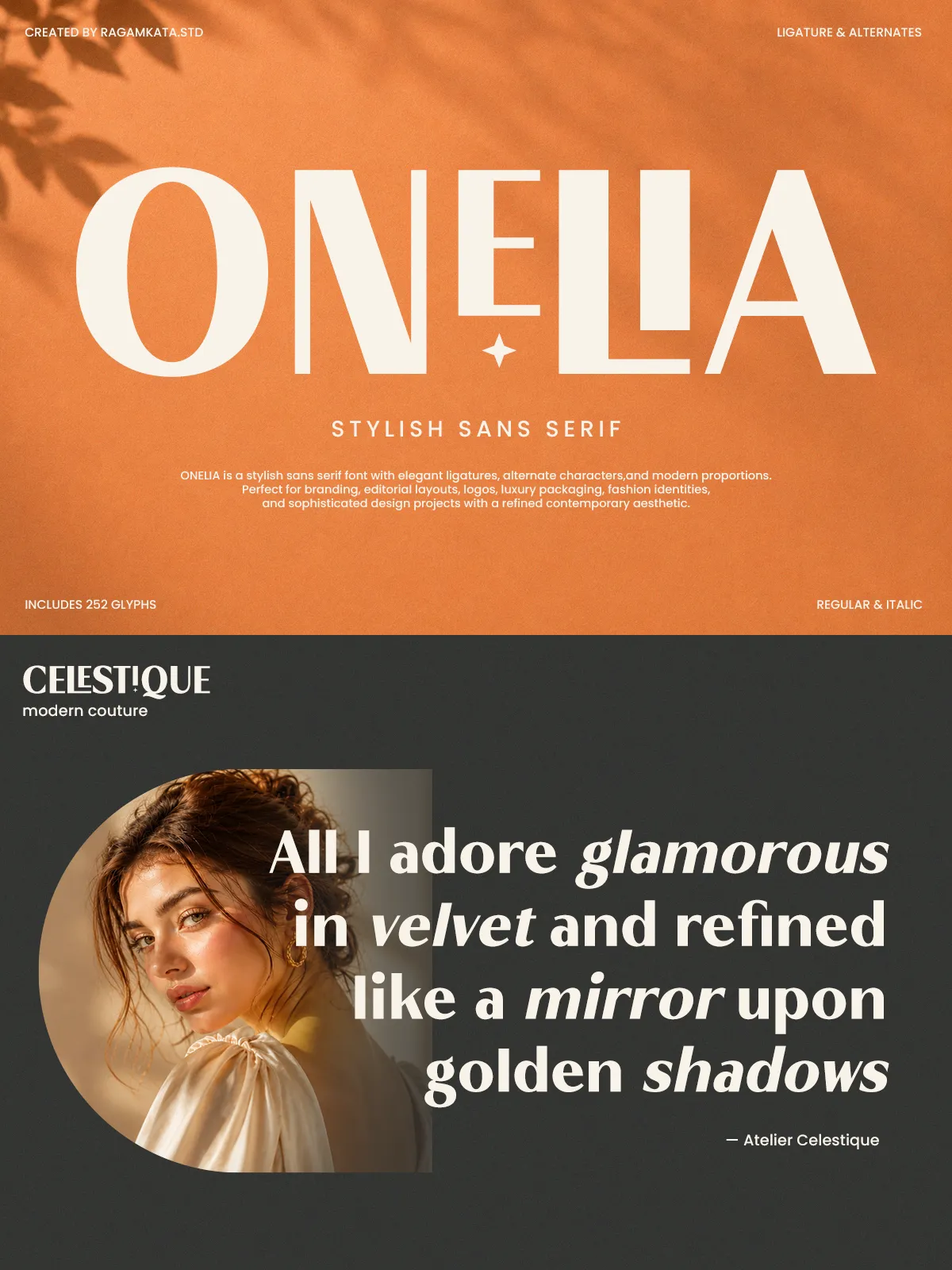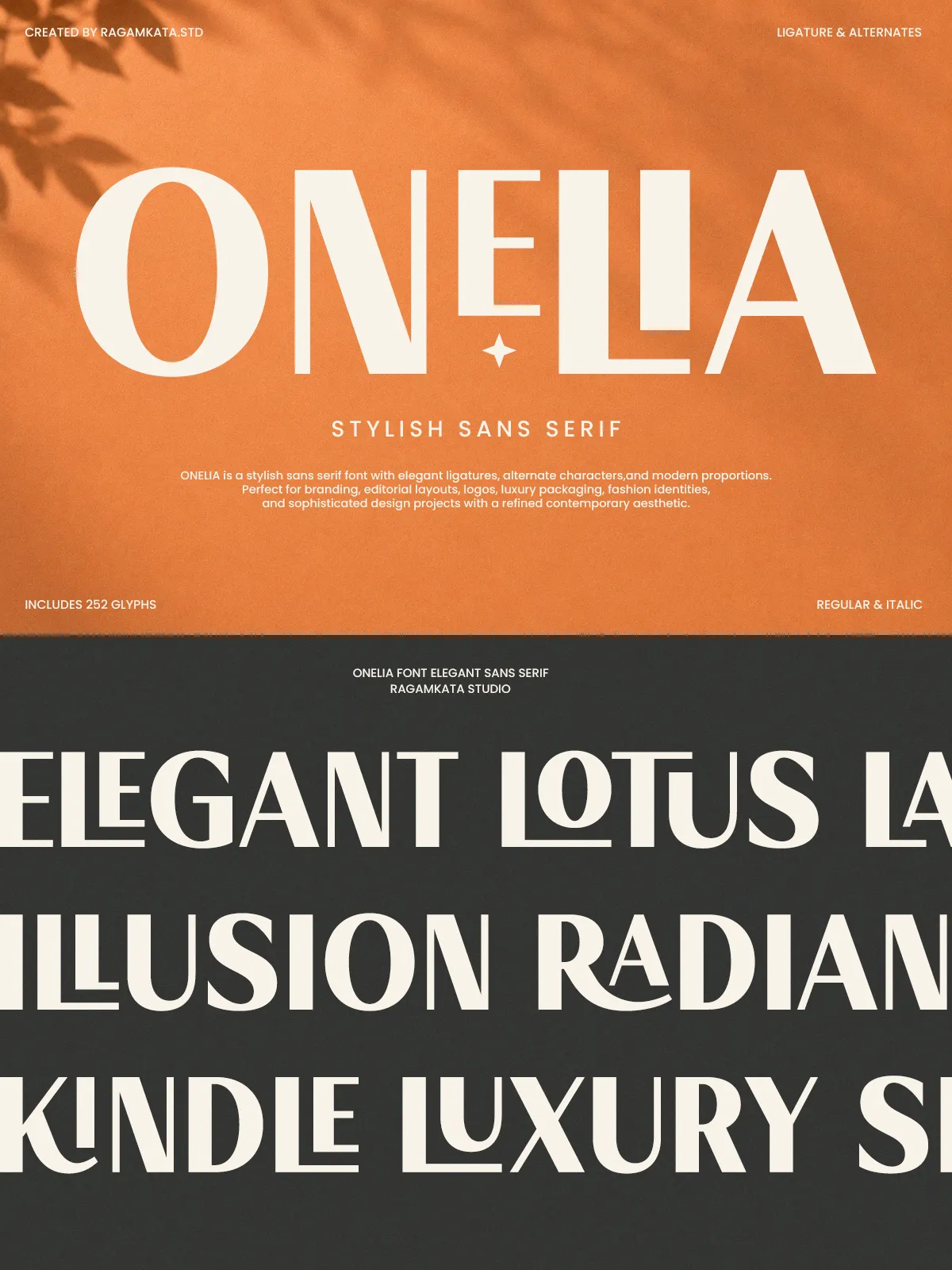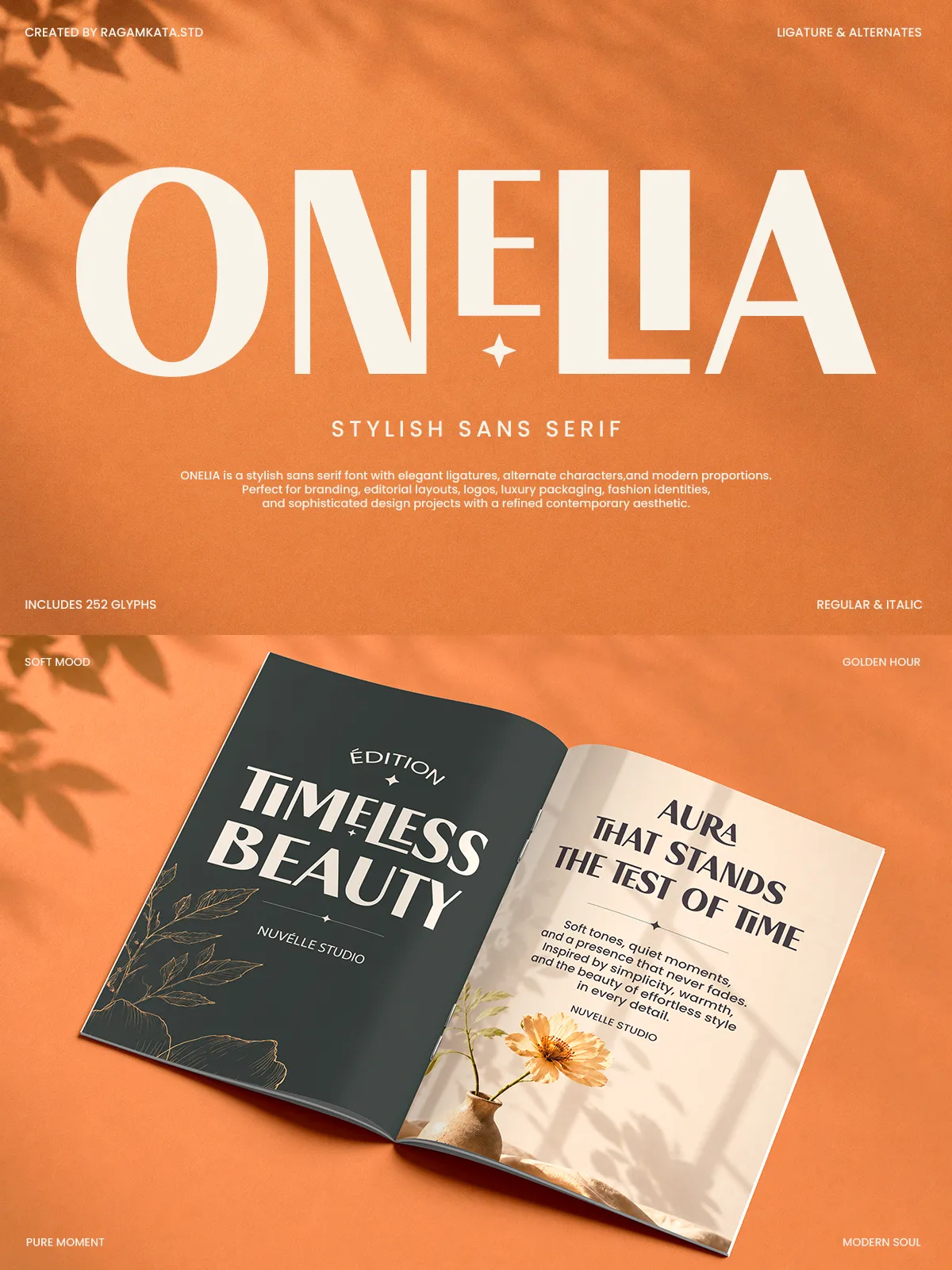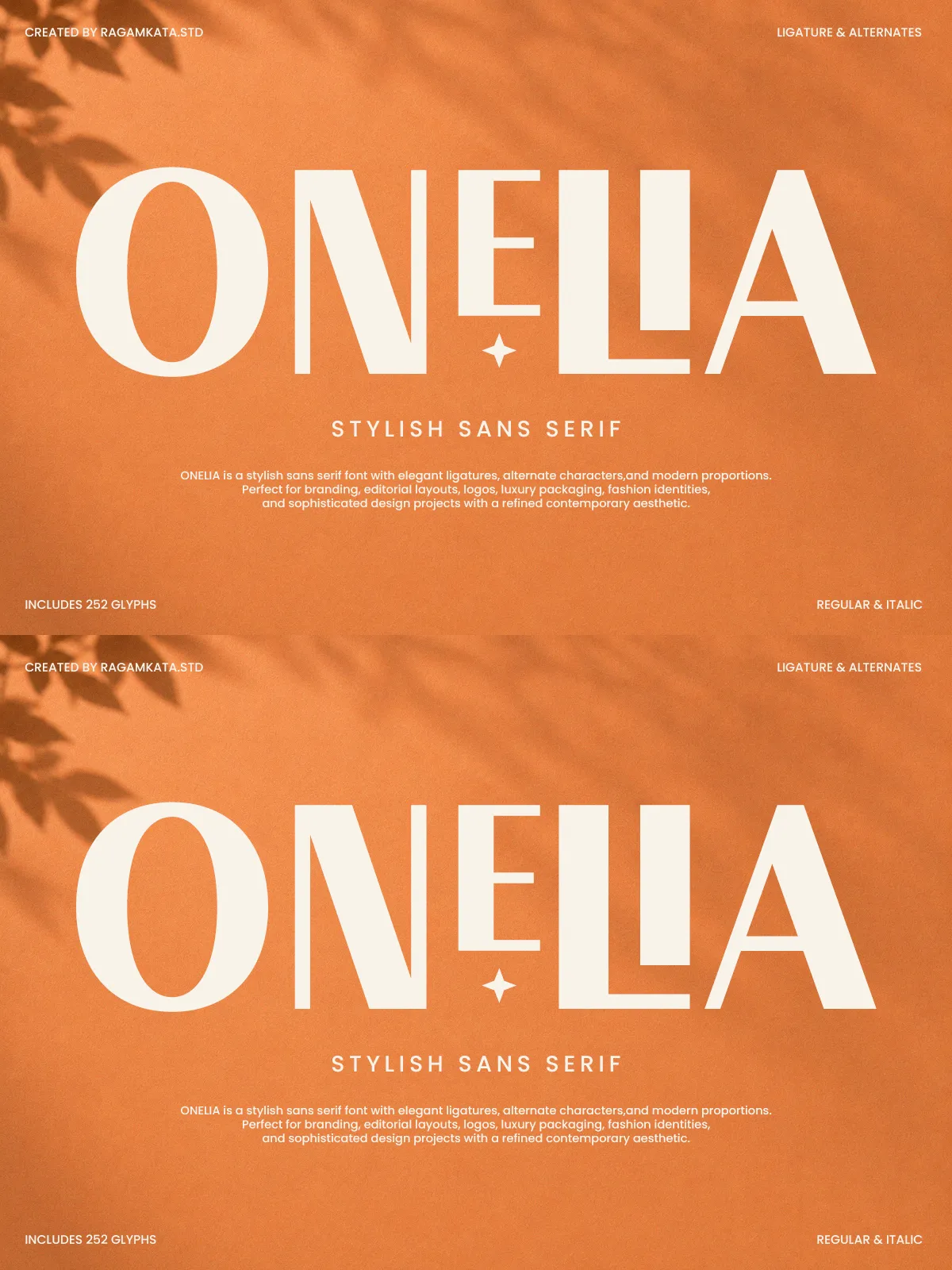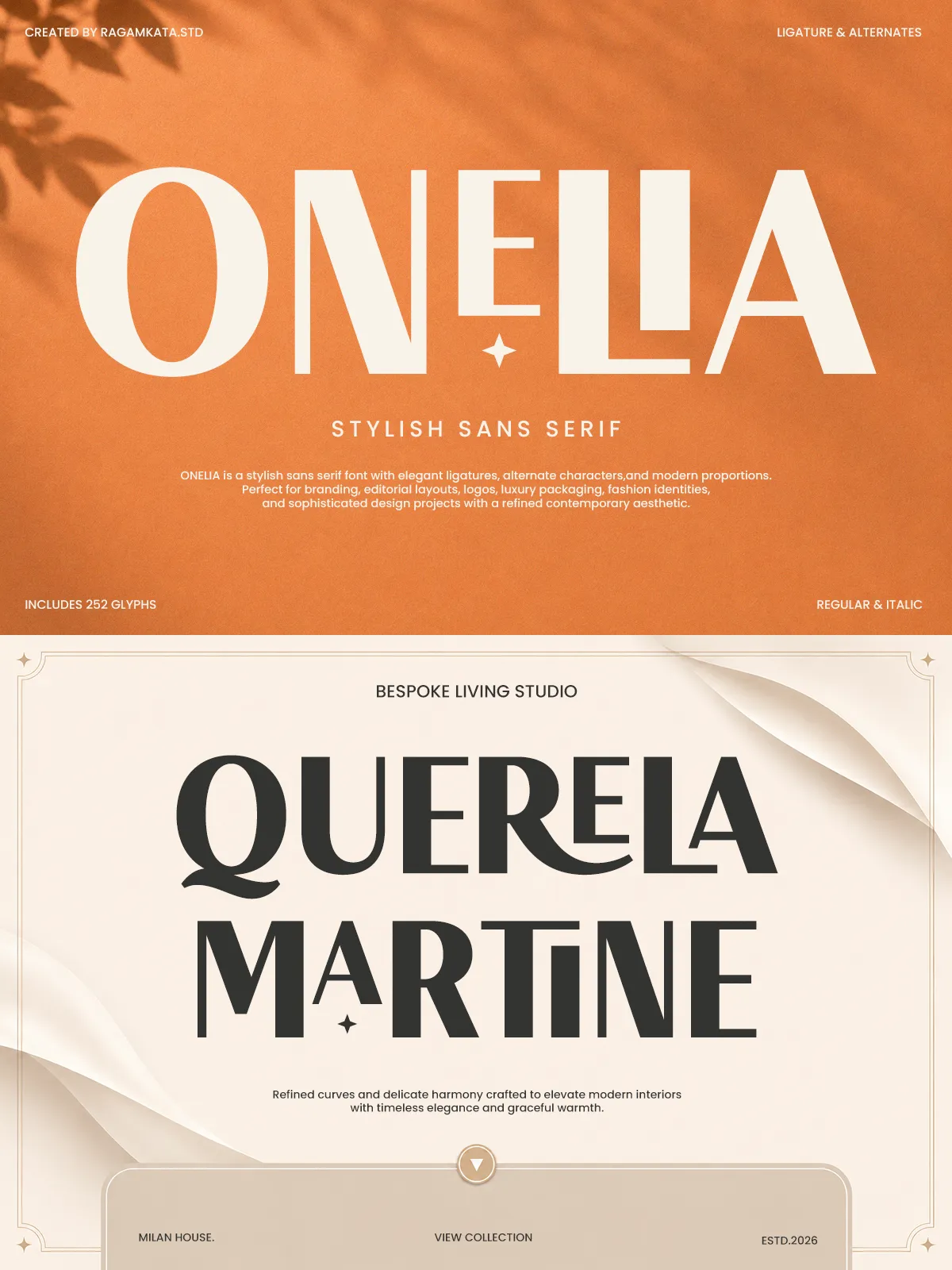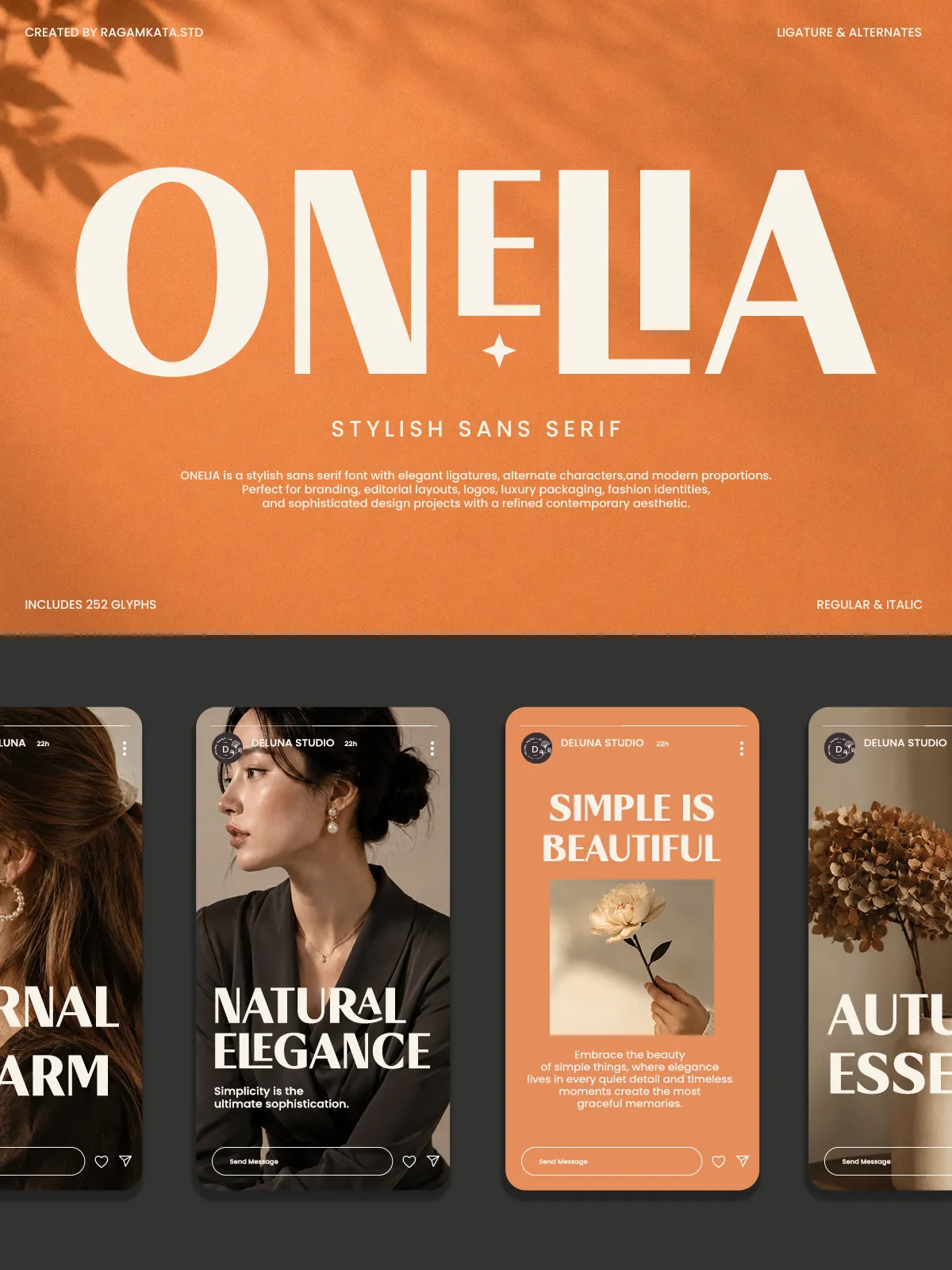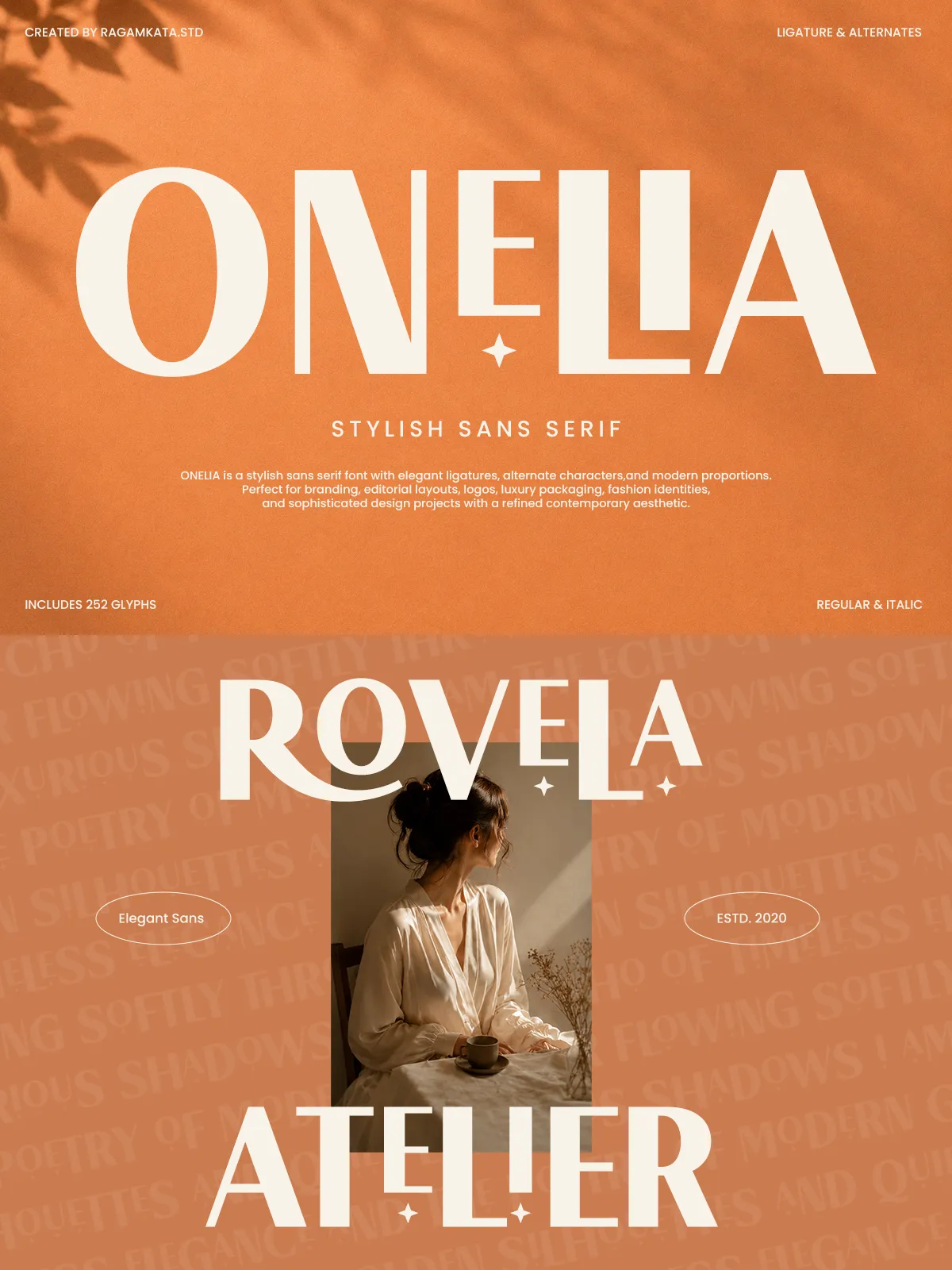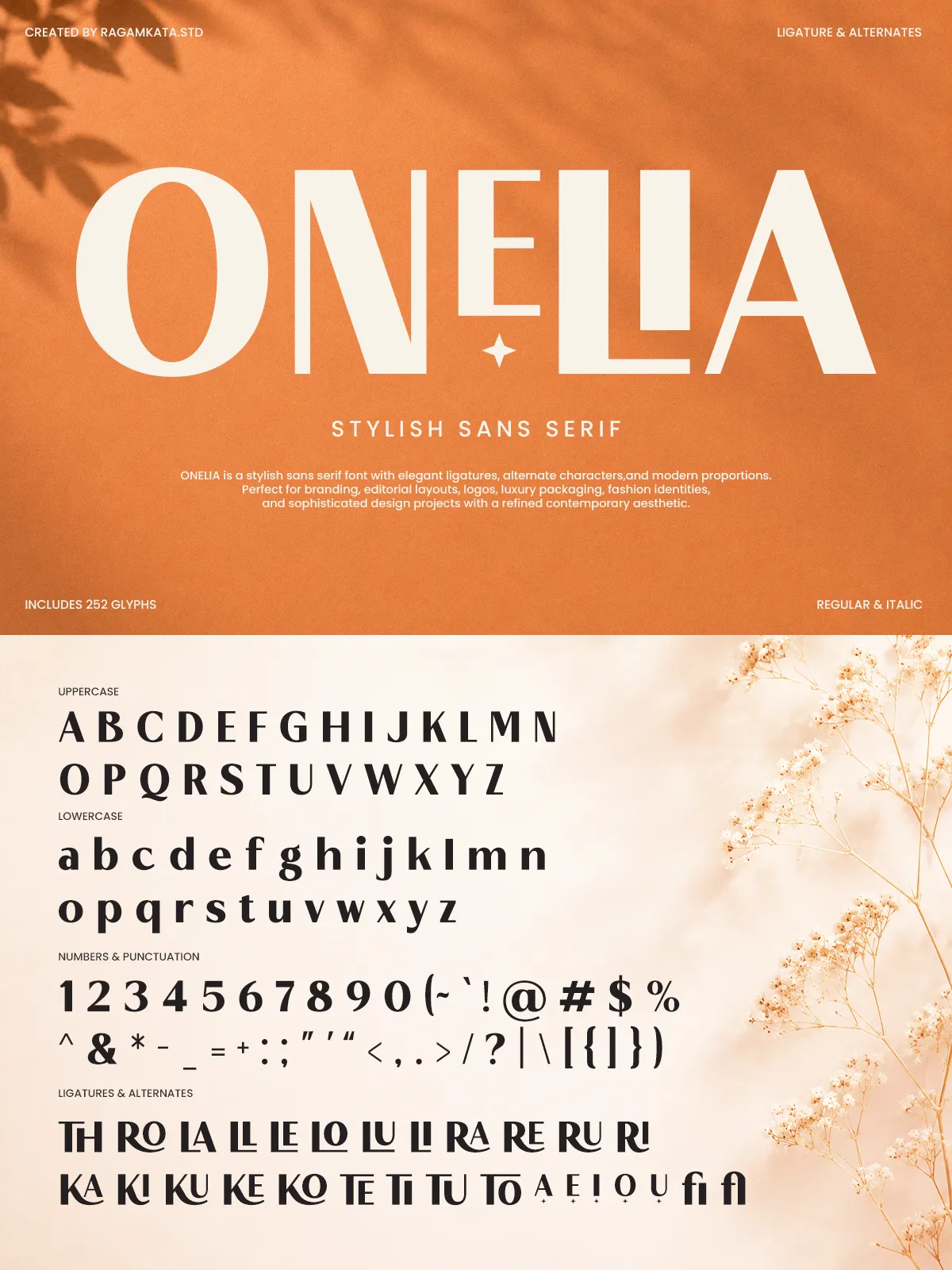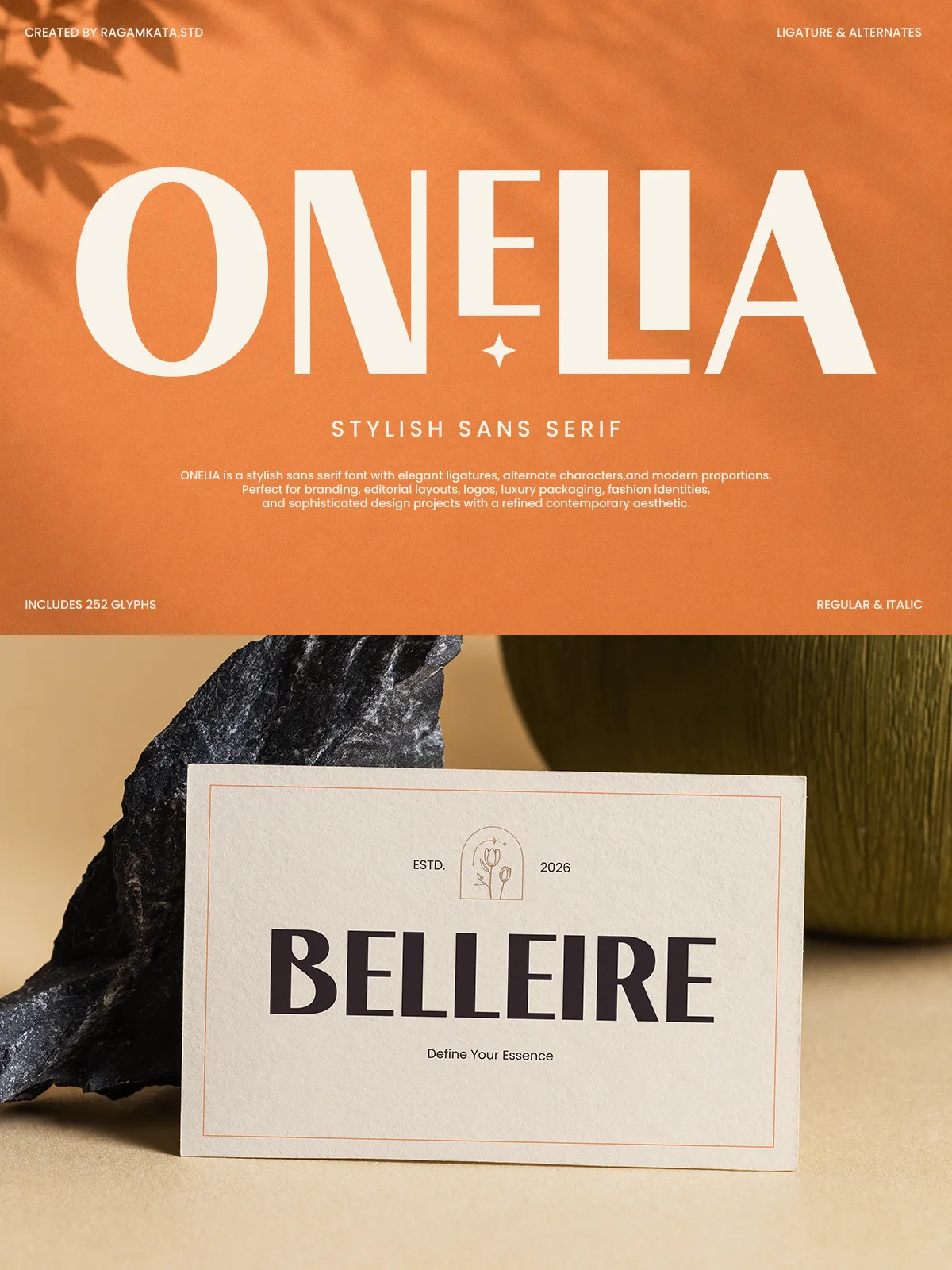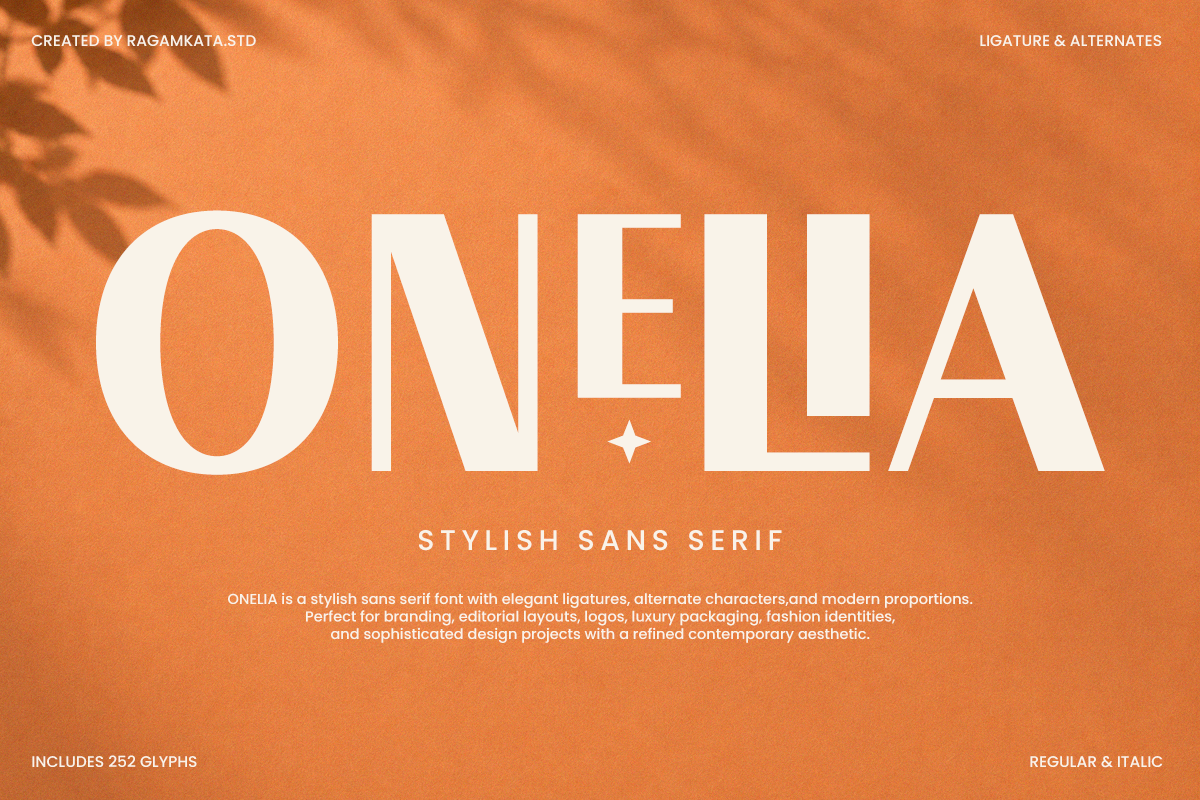
Onelia is a stylish sans serif font crafted to bring elegance, sophistication, and modern luxury into every design. Featuring distinctive ligatures, refined alternates, and beautifully balanced letterforms, Onelia delivers a premium visual identity perfect for contemporary branding projects. Its unique character shapes create memorable typography that stands out while maintaining excellent readability and versatility.
Designed for creative professionals, fashion brands, beauty businesses, luxury packaging, editorial layouts, and modern logo design, Onelia combines clean sans serif construction with artistic details that elevate any project. Whether you’re creating a high-end brand identity, magazine headline, social media campaign, product packaging, or wedding stationery, Onelia adds a polished and fashionable aesthetic that feels both timeless and current.
With uppercase and lowercase characters, punctuation, numerals, multilingual support, stylish ligatures, and alternate glyphs, Onelia offers the flexibility needed for professional design work. Its elegant forms and contemporary personality make it an excellent choice for designers seeking a modern luxury font that performs beautifully across both digital and print applications.
Features :
- Uppercase & Lowercase
- Numerals & Punctuation
- Stylistic Alternates
- Elegant Ligatures
- Multilingual Support
- Regular & Italic